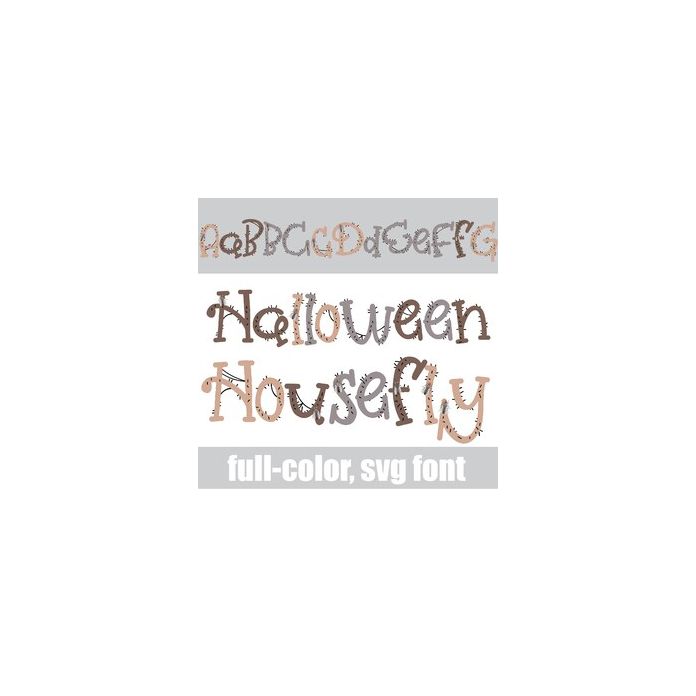
This handwritten font features scary hairs, webbing and houseflies throughout. There is an alt case w/ additional colors you can access through your system or Silhouette's glyph map.